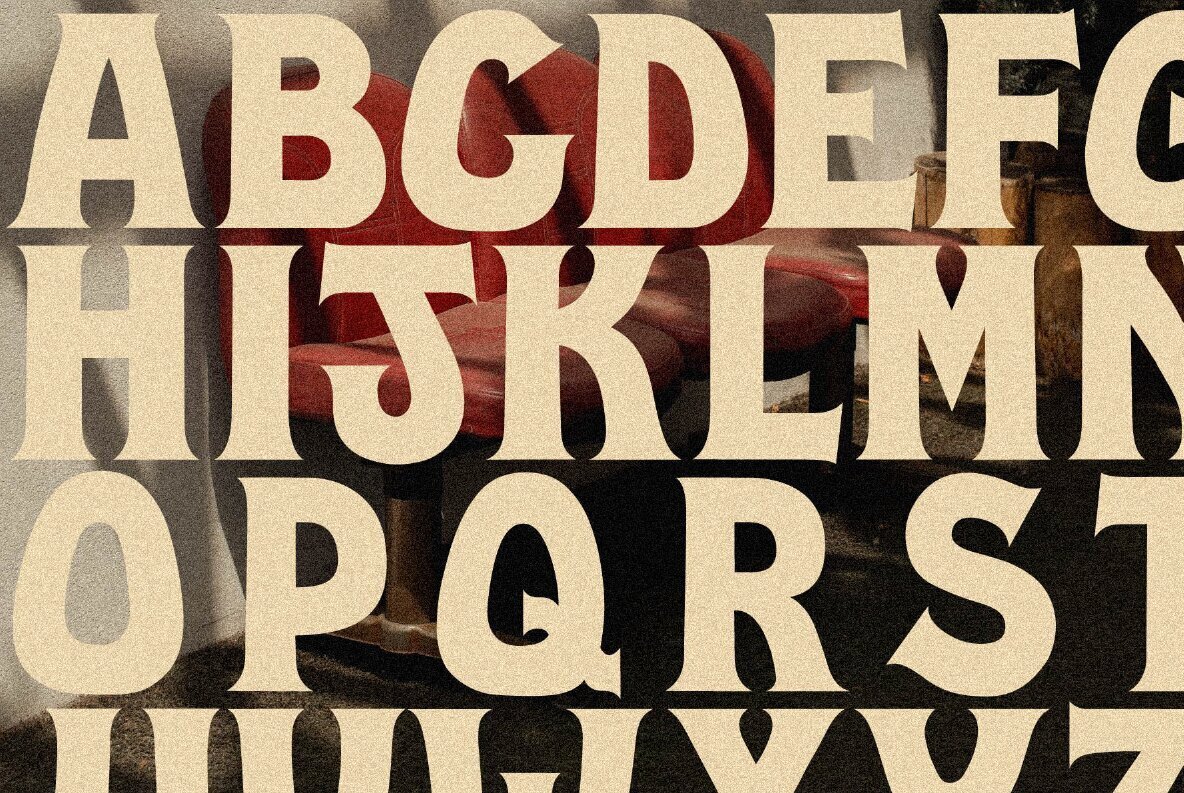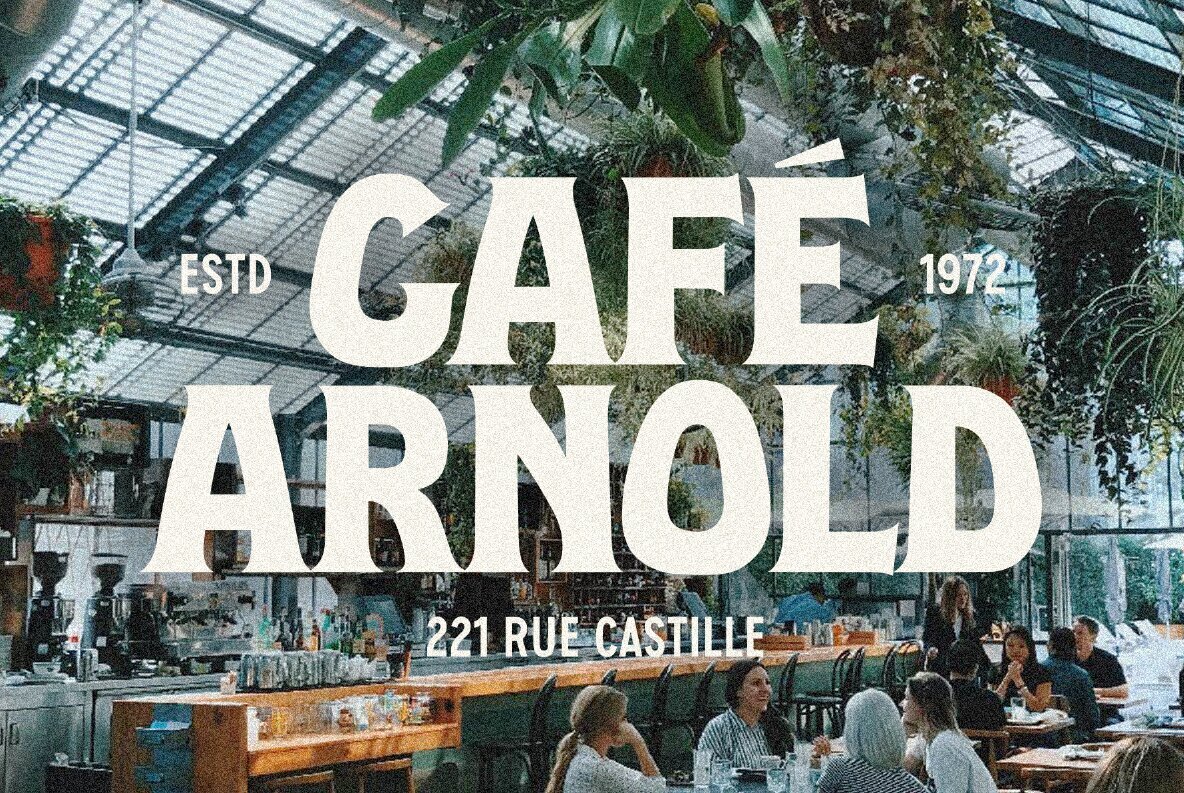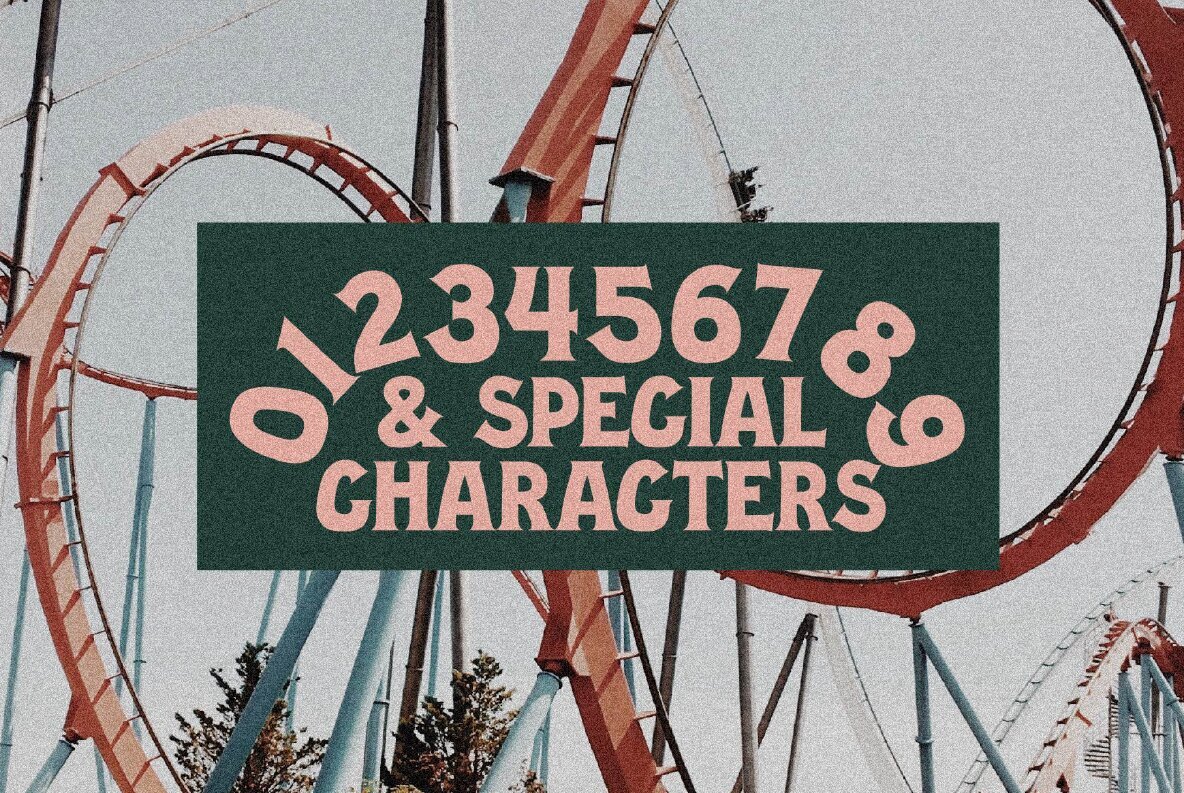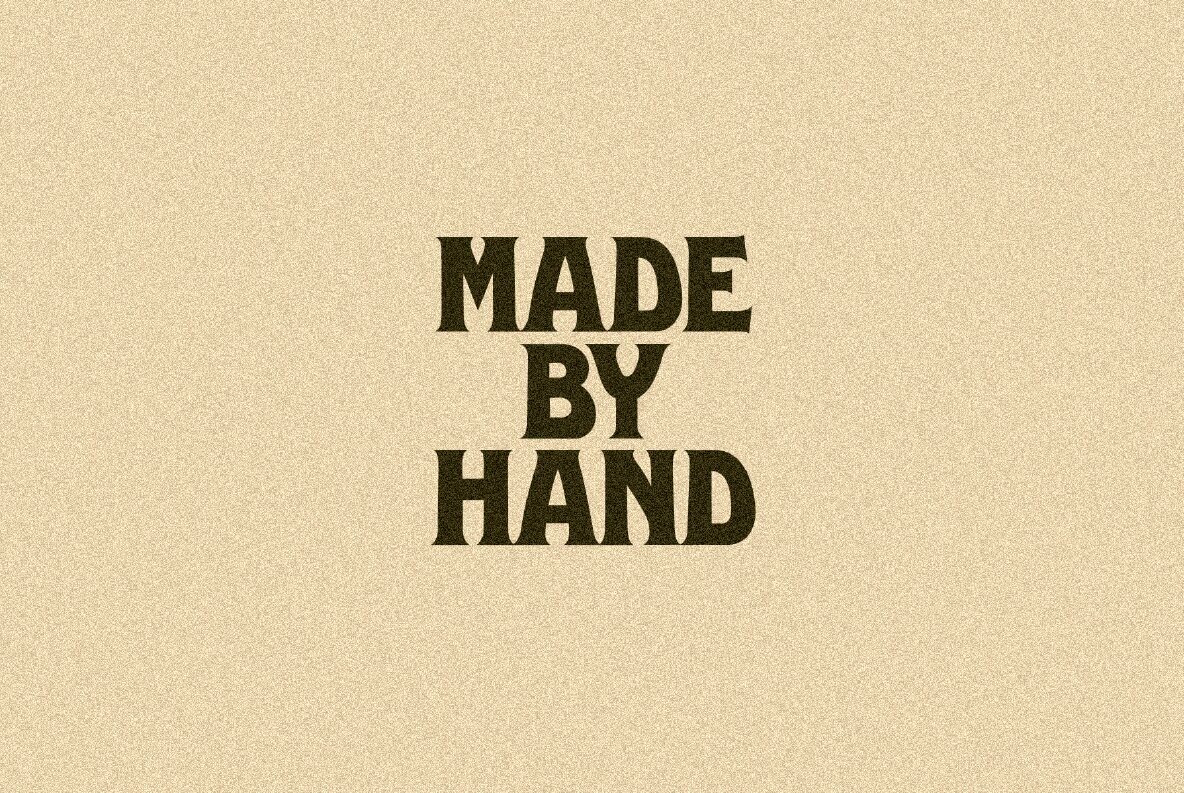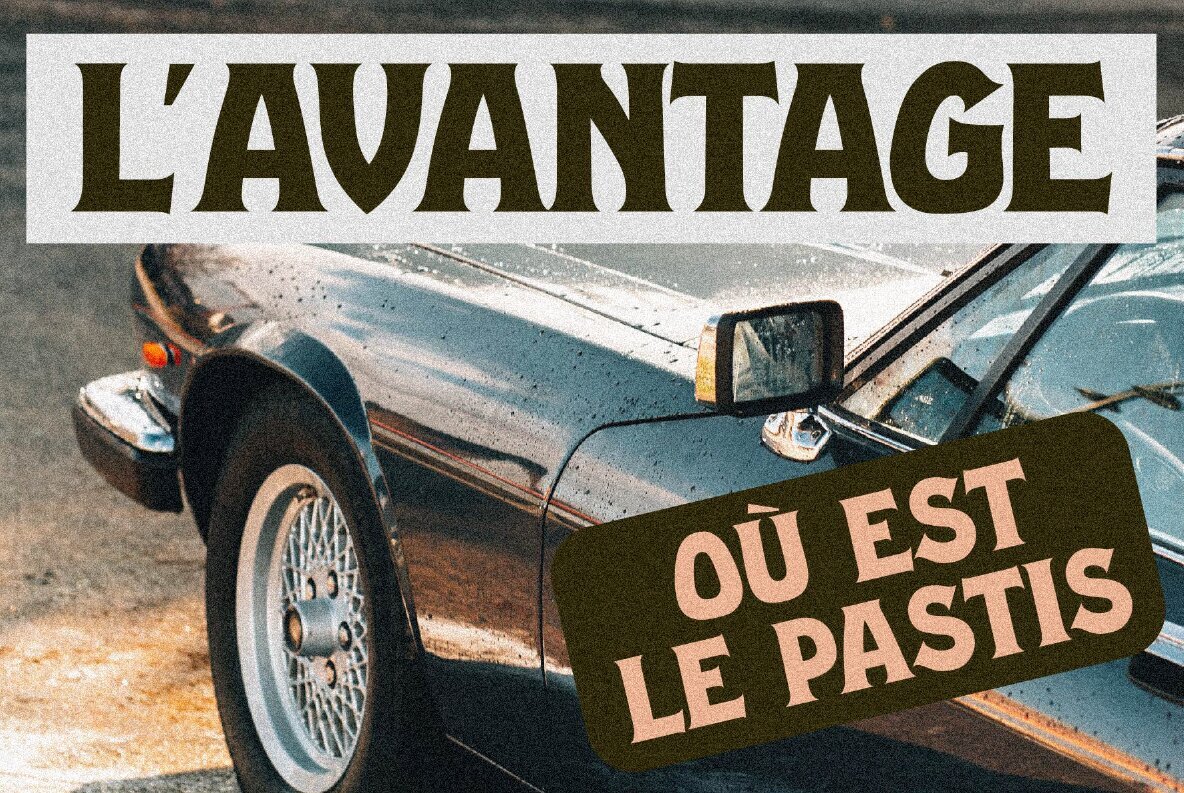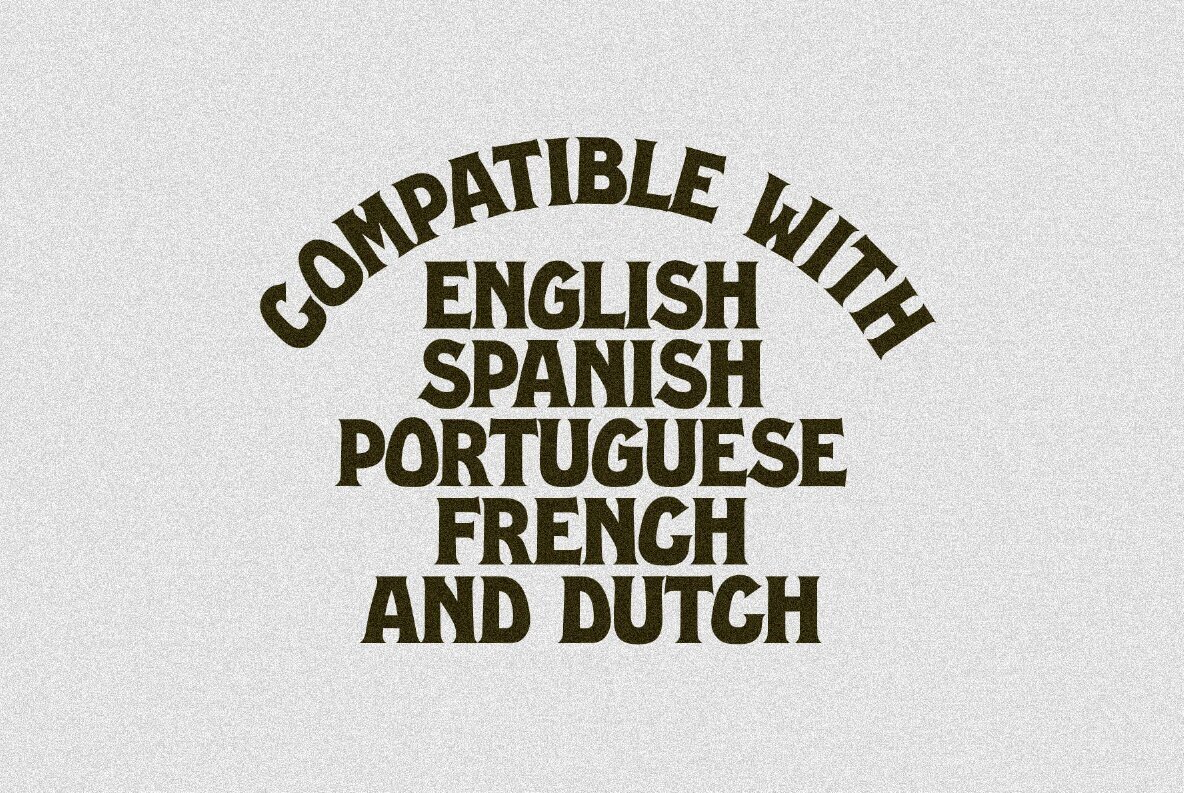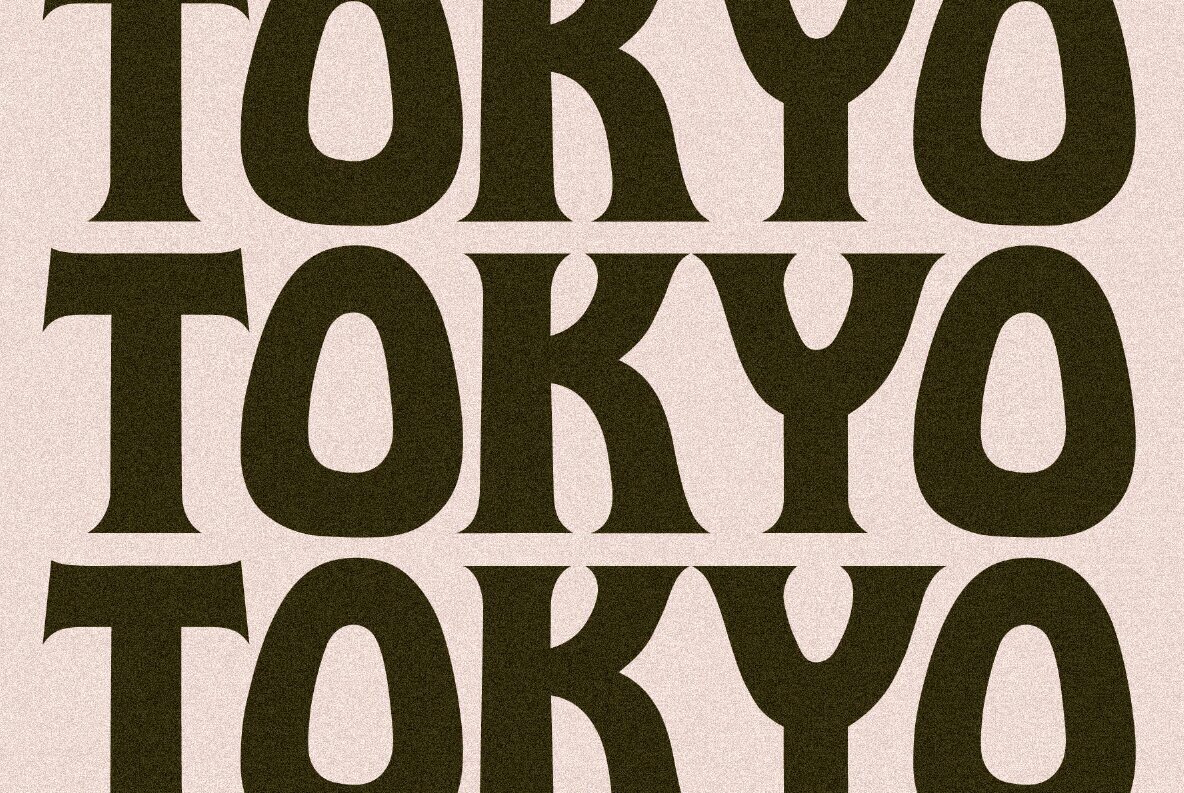
MC Gaute Caps Font
MC Gaute Caps
A humble, hand-drawn font, MC Gauté Caps handles any title, poster, or branding project with the care that was taken to make it. Most enjoyable at large sizes, this bad boy is compatible with English, Spanish, Portuguese, French, and Dutch.